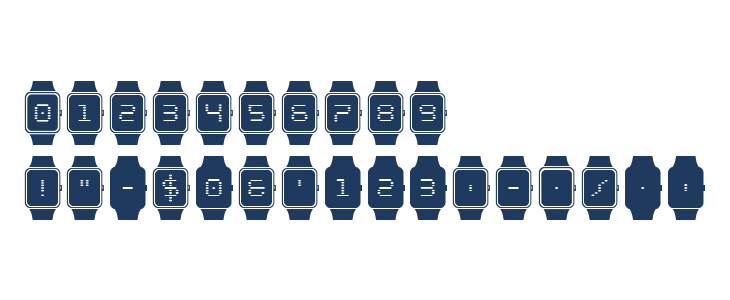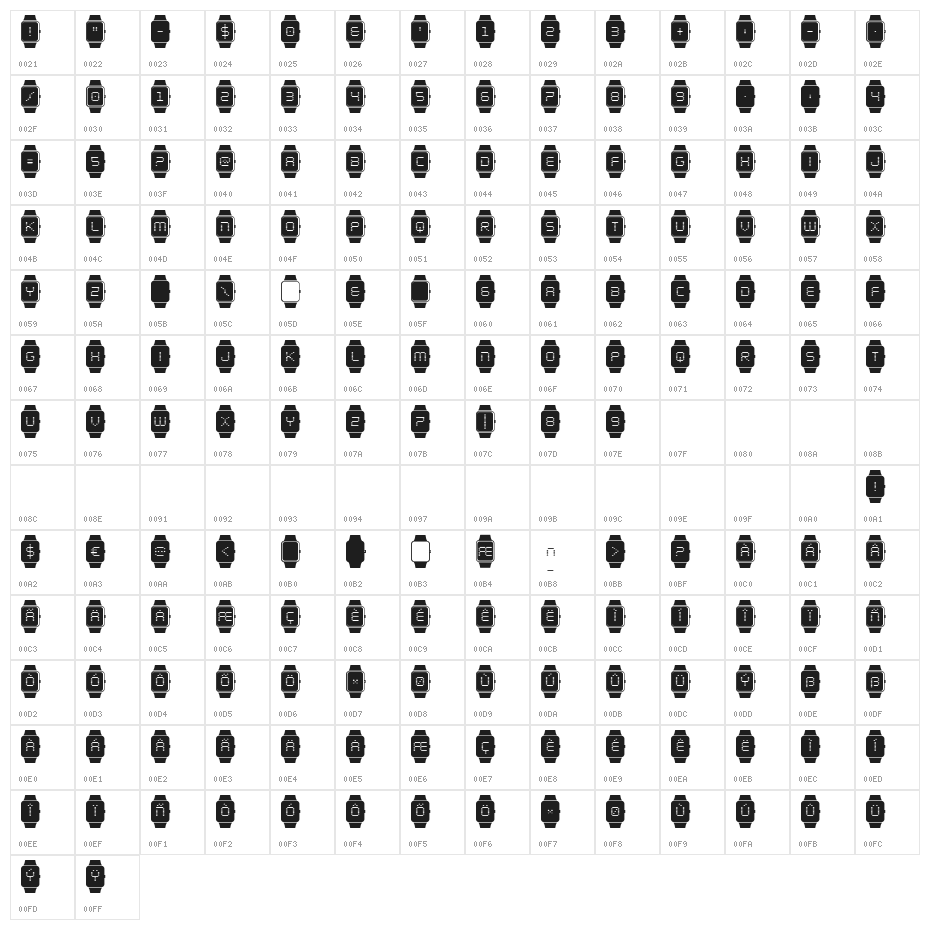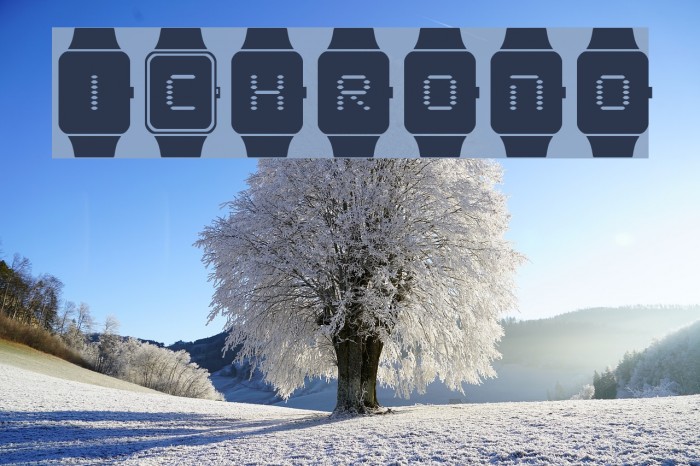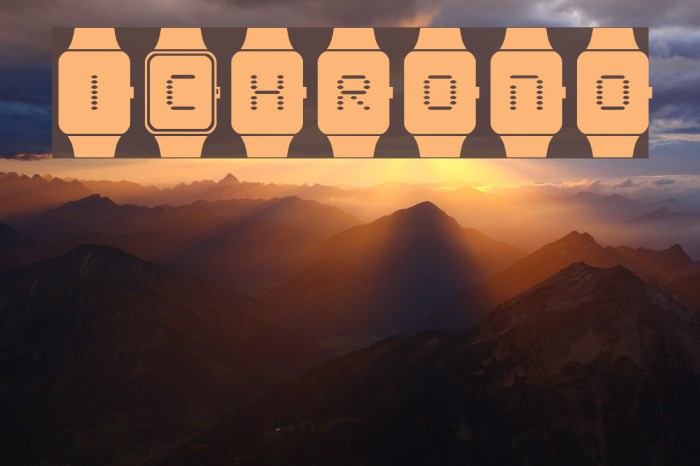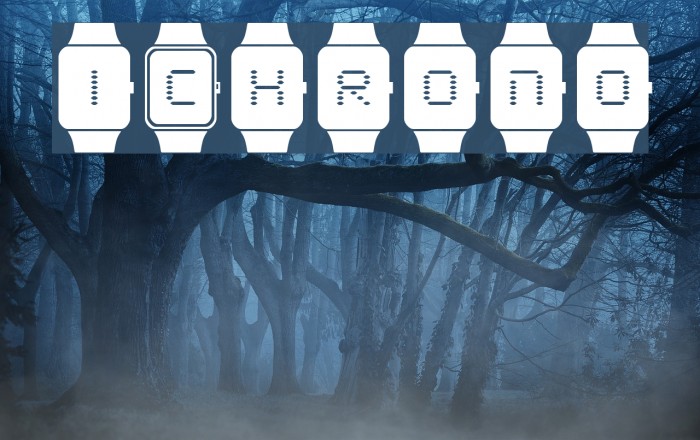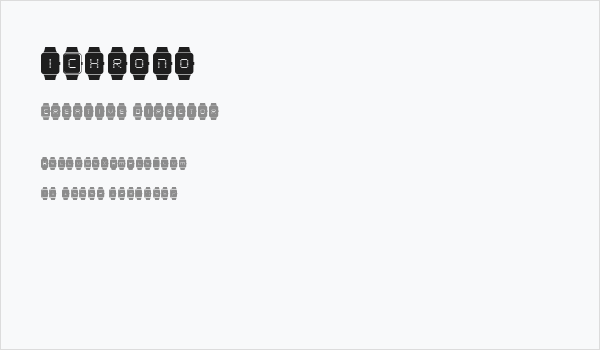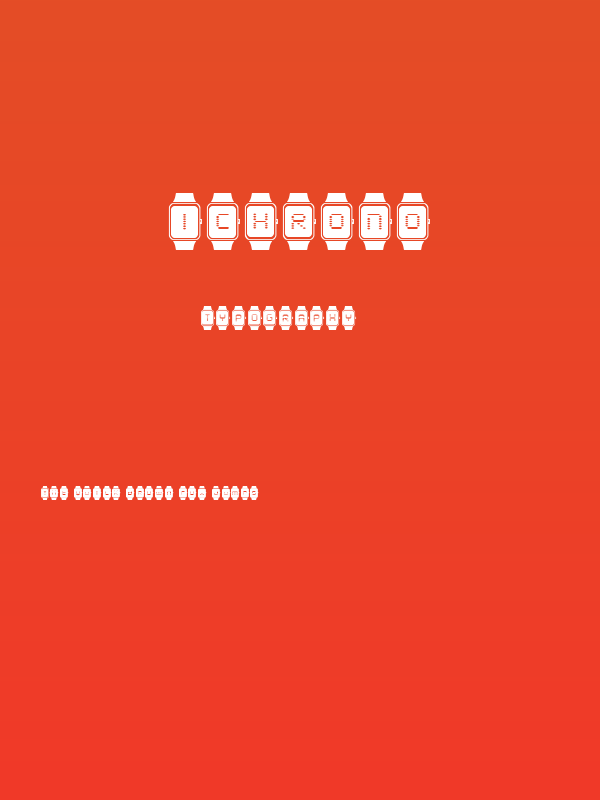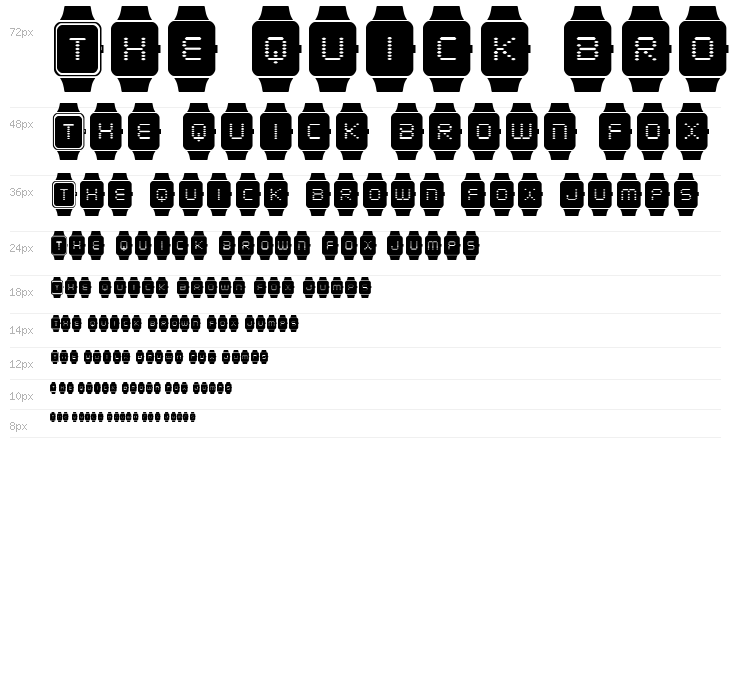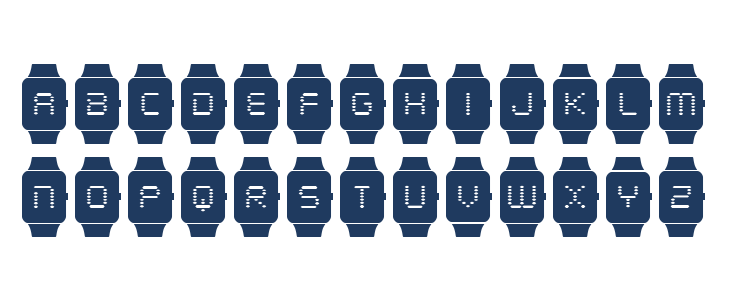
iChrono Font
iChrono Description
This font is inspired by digital watch displays, featuring characters enclosed within watch-like frames. Each letter and number is composed of segmented lines, reminiscent of LED or LCD screens. The design is highly geometric, with a futuristic and tech-oriented aesthetic. The characters are uniformly spaced within their frames, providing a consistent and structured appearance. This style is ideal for conveying a sense of modernity and technology, making it suitable for digital-themed projects. The font's unique presentation within watch outlines adds a decorative element, enhancing its visual appeal.
| Use Case | Logos, Headlines, Digital interfaces |
| Proposed Projects | Ideal for tech-related branding, digital interfaces, futuristic designs, and themed event posters. |